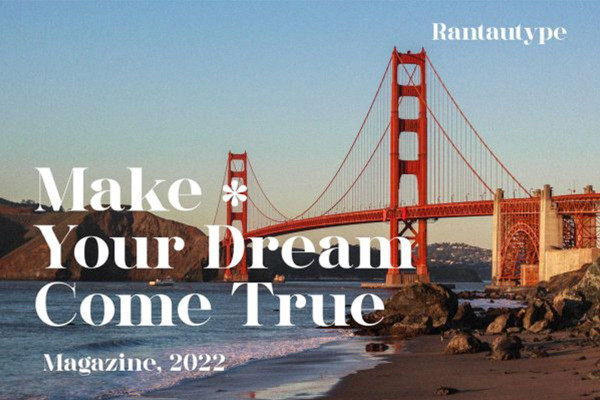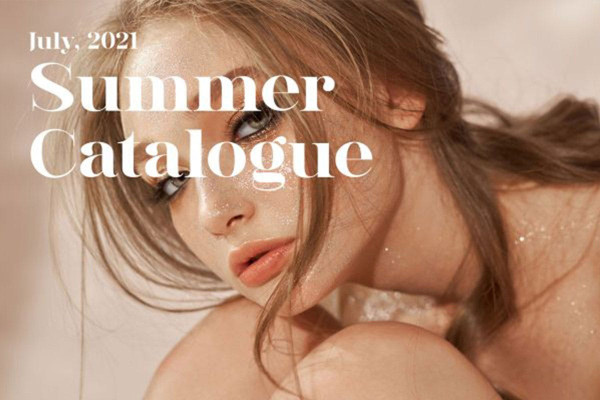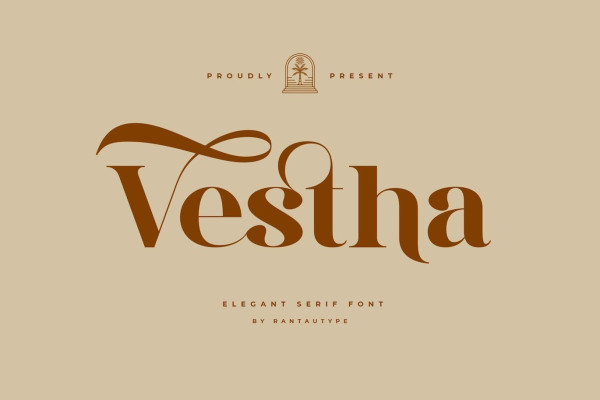
Vestha Font
Vestha Font is an elegant serif font with a unique shape. Many professional brands need an elegant logo, that’s why I created this font. Opsi is perfect for designing brands and logos. You will get classy, ​​elegant and definitely unique logos with this font. Vestha is here to elevate your brand to the highest level! ! !